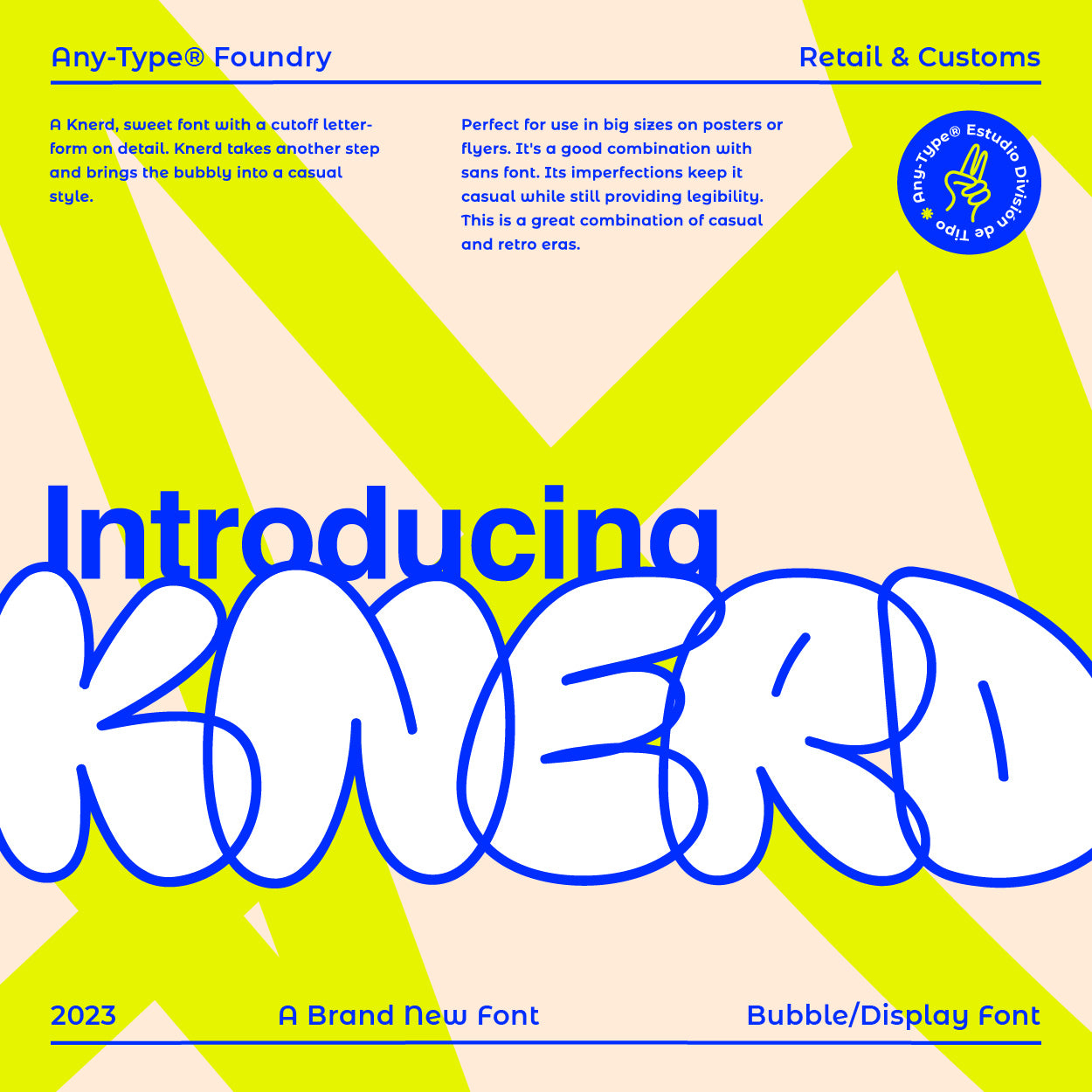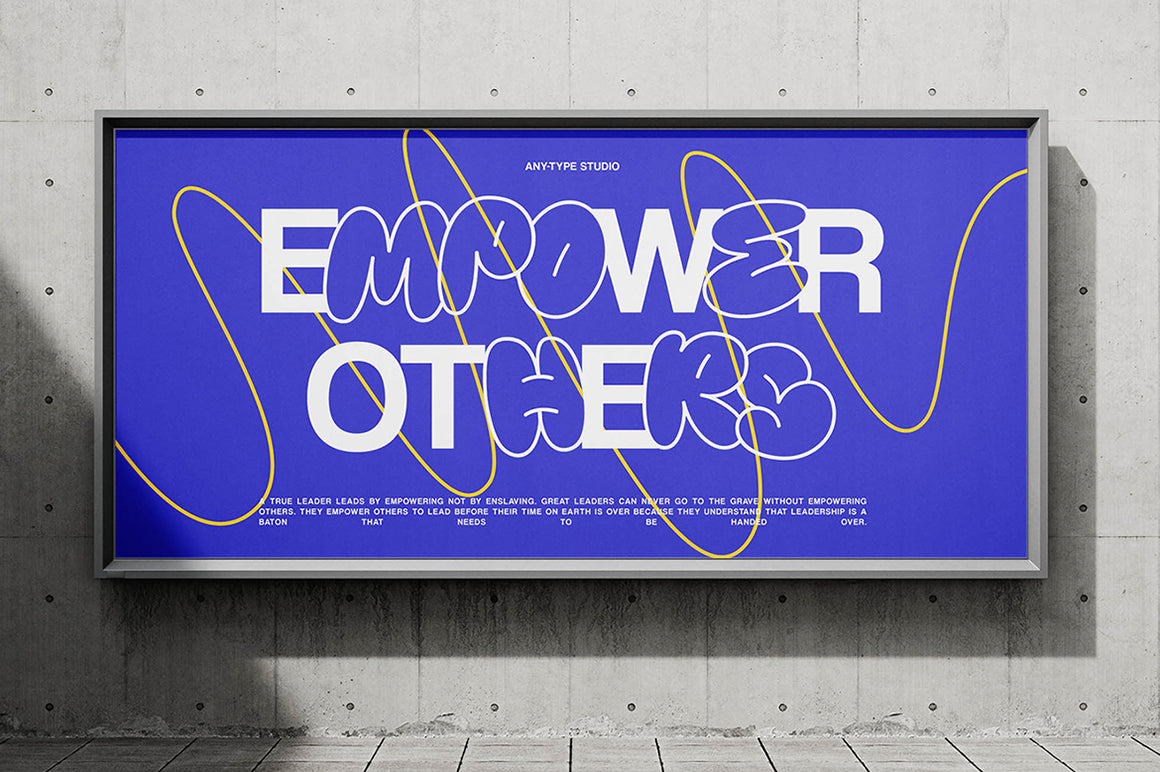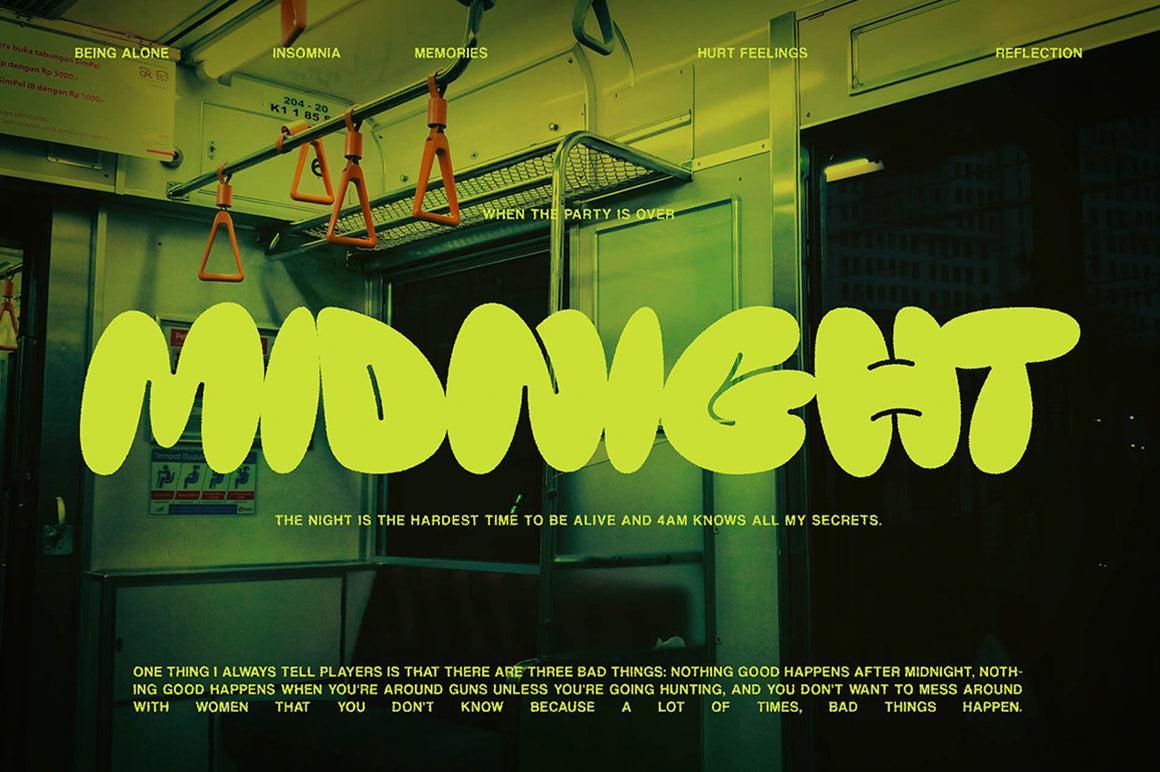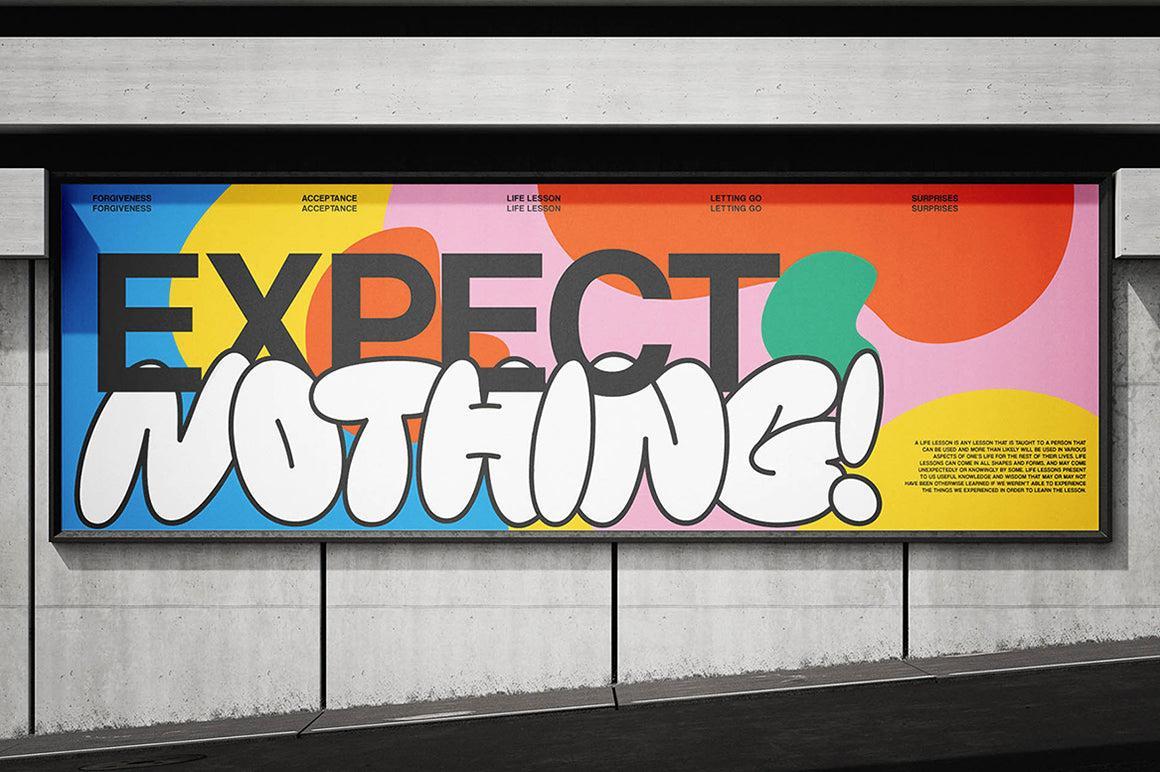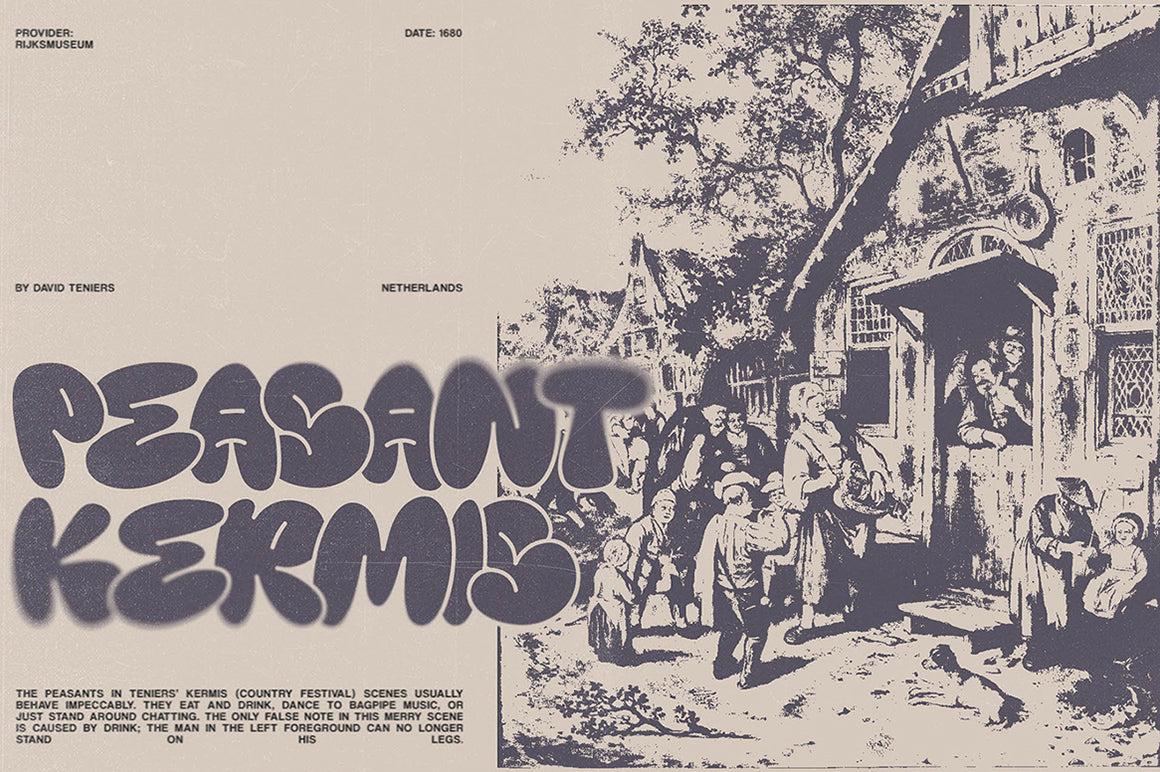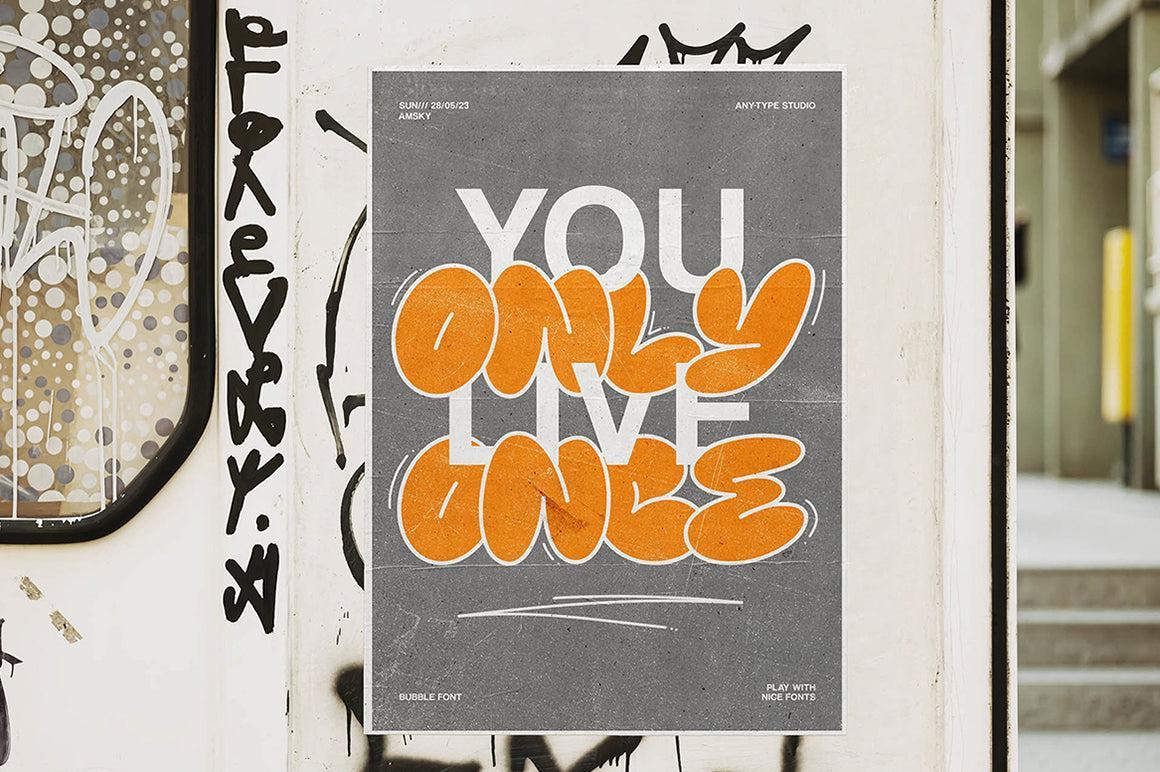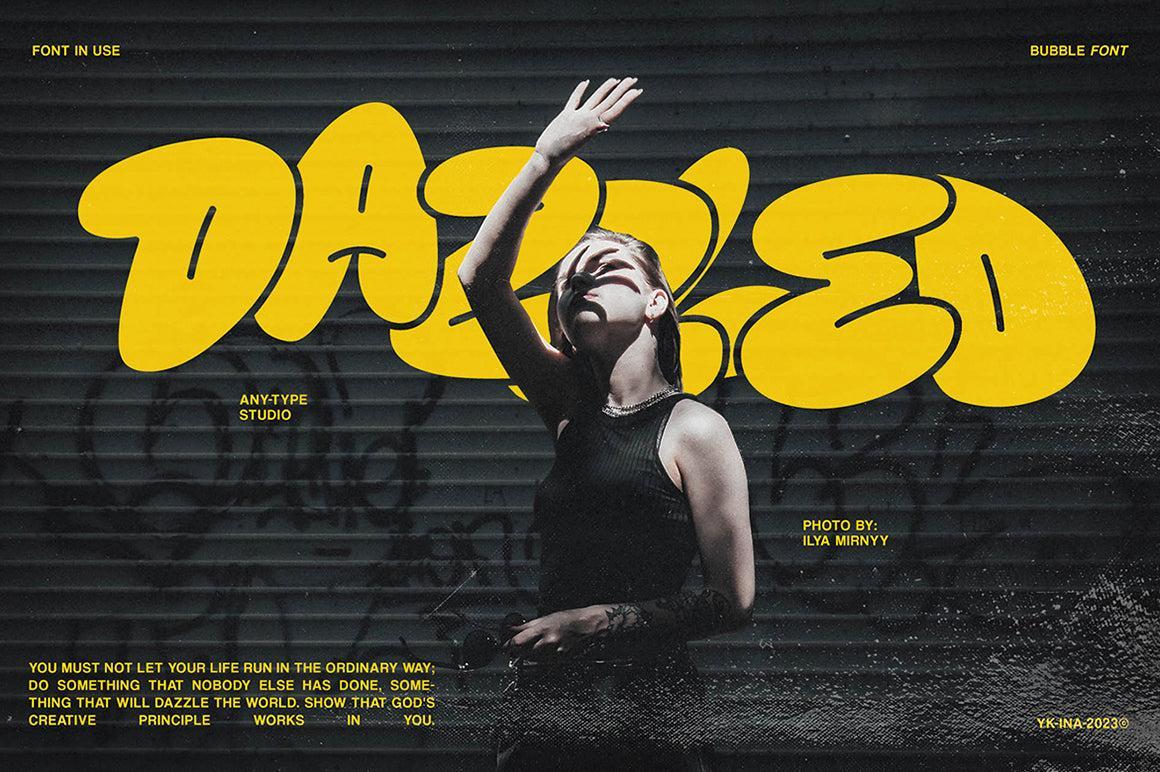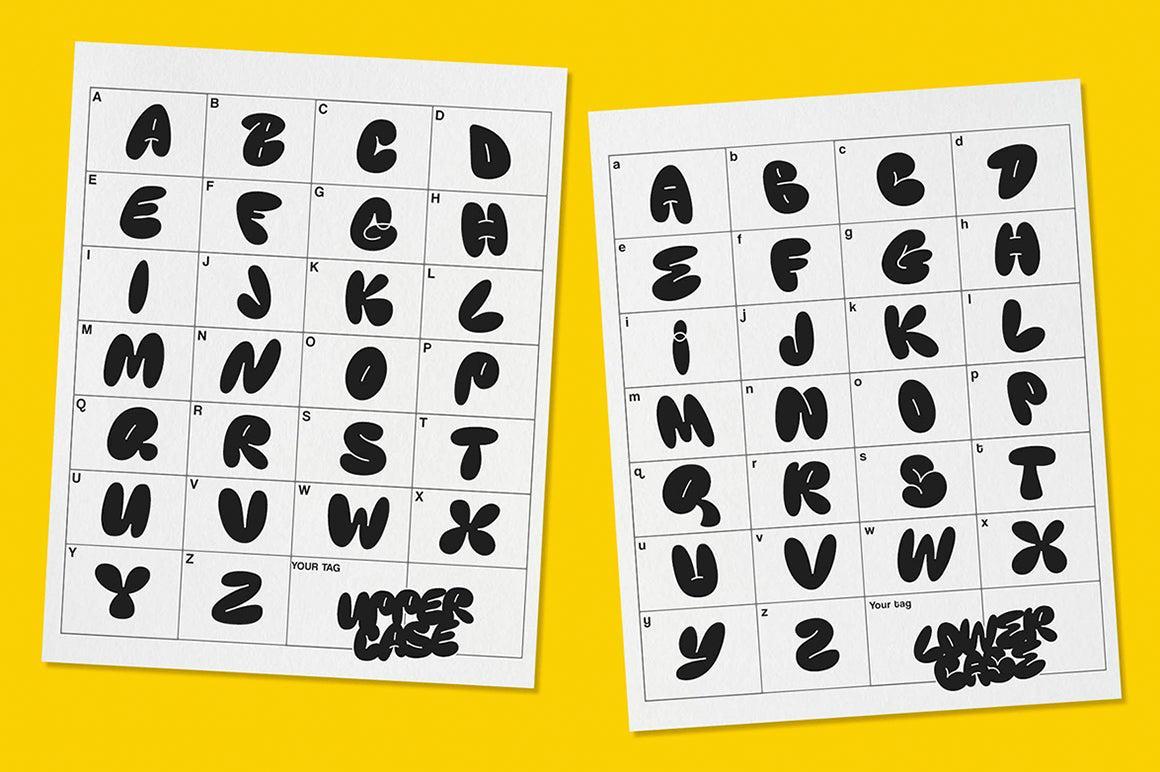
Knerd Bubble Font
Knerd Bubble Font is a rounded, graffiti-inspired typeface featuring a unique cutoff letterform, available in filled and outline styles. It supports multilingual characters, numbers, and punctuation, making it a versatile option for various design projects.